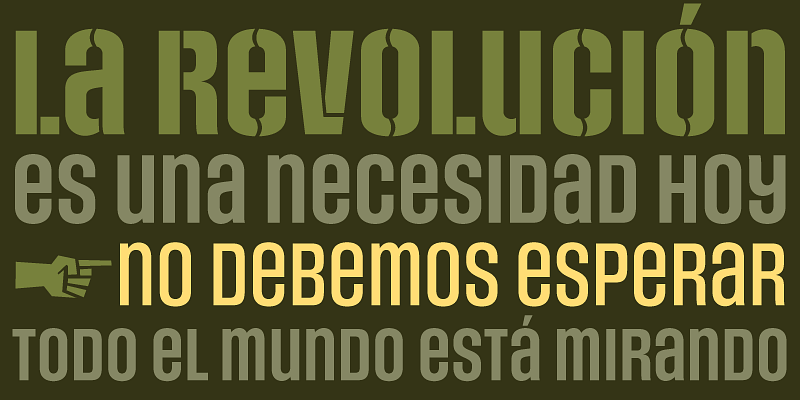
Social Gothic specimen
Social Gothic
Social Gothic is a gothic face with humanist leanings. It combines standard sans serif elements with some wooden shapes and oval lowercase components to achieve a handmade look while maintaining a clean, understated message delivery.